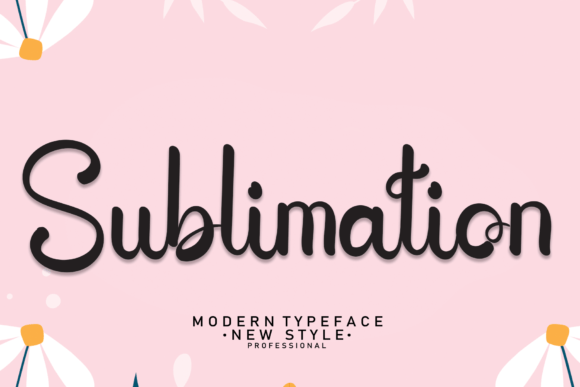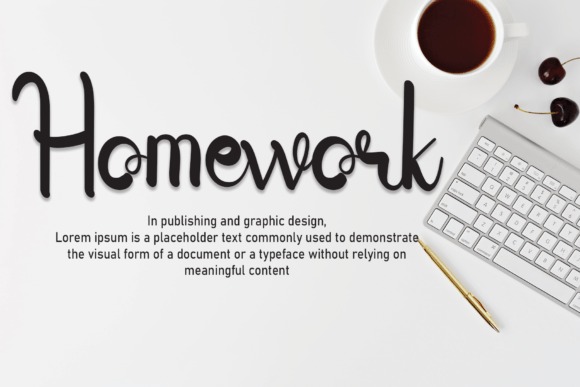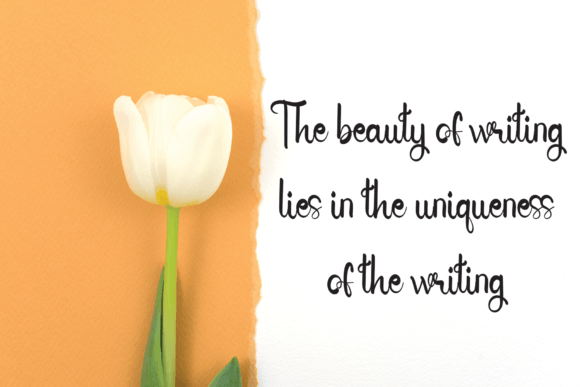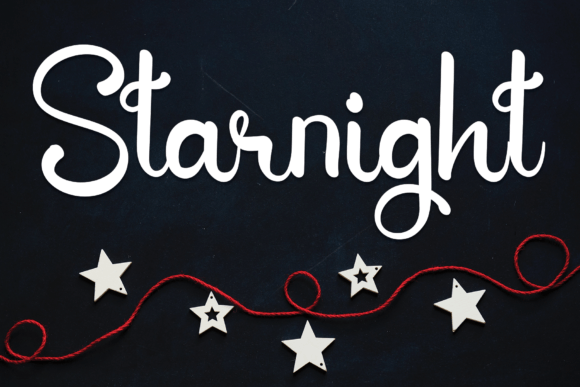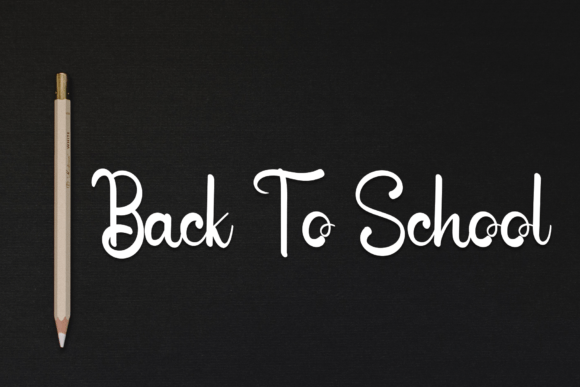
Sublimation Font
About Sublimation Font Download
The Sublimation Font Download is a fun and friendly handwritten script designed to bring charm and playfulness to a wide range of creative projects. With its casual strokes and approachable rhythm, this typeface is perfect for invitations, posters, branding, and digital content. Its versatility makes it a go-to font for designers who want style without losing readability.
A Fun Handwritten Script with Cheerful Style
Unlike plain typefaces, the Sublimation script font blends smooth handwritten lines with a modern and playful look. As a result, it feels both stylish and approachable, making it suitable for projects that require warmth and personality.
Handwritten fonts always enhance personal designs. The Sublimation Font is excellent for wedding invitations, seasonal greeting cards, thank you notes, and birthday messages. Moreover, its playful handwritten rhythm ensures that every card feels genuine and memorable.
Branding and Logo Design with Sublimation Font
Typography is a powerful part of branding. The Sublimation handwritten font works wonderfully for boutique logos, product packaging, and promotional campaigns. In addition, its fun yet professional flow helps brands communicate creativity and friendliness.
Posters, Titles, and Creative Displays
The Sublimation Font Download is also a great choice for posters, book covers, banners, and magazine layouts. Therefore, it adapts well across small and large designs while keeping its charm intact.
In the digital era, fonts must be versatile and visually appealing. The Sublimation typeface integrates smoothly into Instagram graphics, Pinterest boards, YouTube thumbnails, and blogs. Its friendly handwritten form ensures your digital designs look polished and engaging.
Why Designers Choose Sublimation Typeface
Designers value fonts that balance readability with charm. Many handwritten scripts can look artistic but lose clarity, while the Sublimation handwritten script stays legible at any size. This makes it a reliable choice for both professionals and hobbyists.